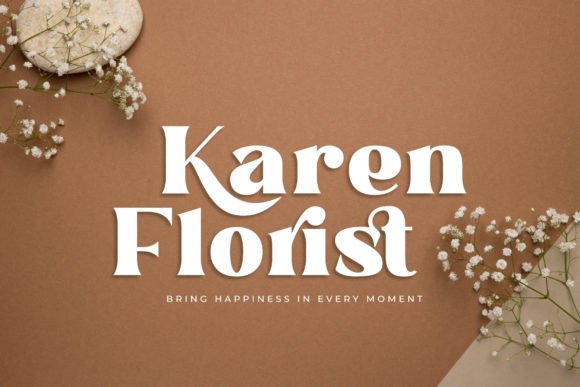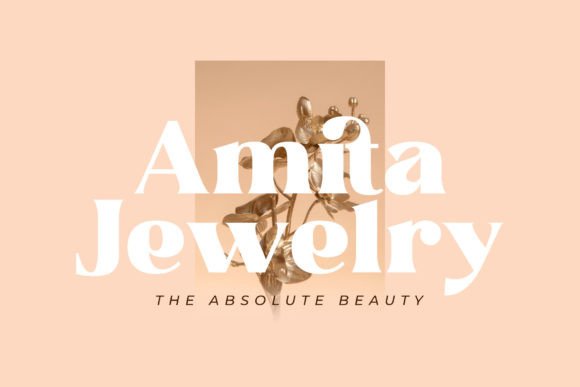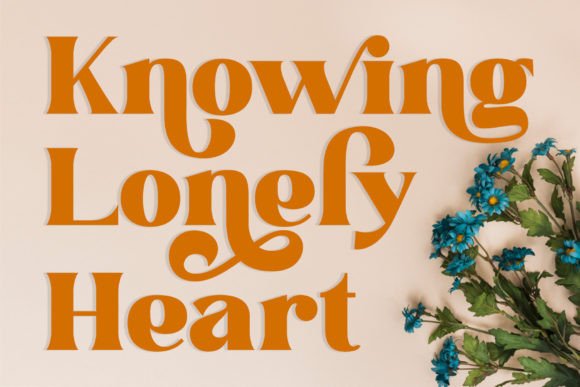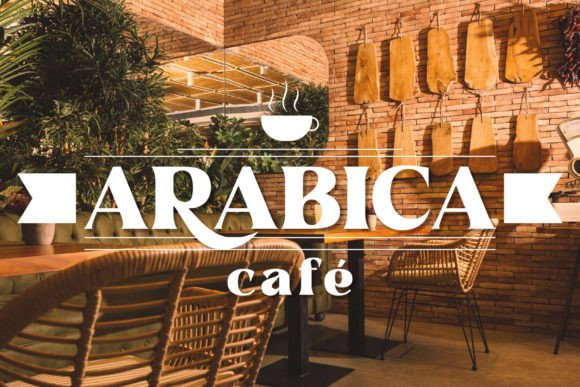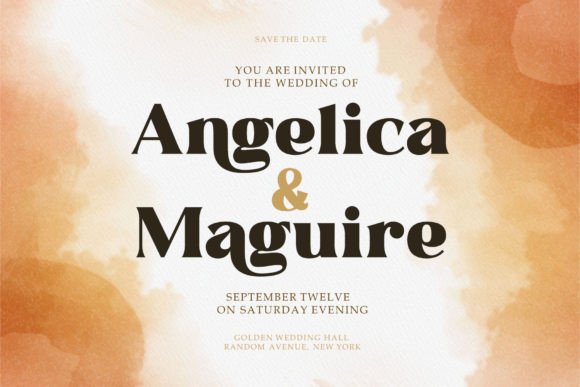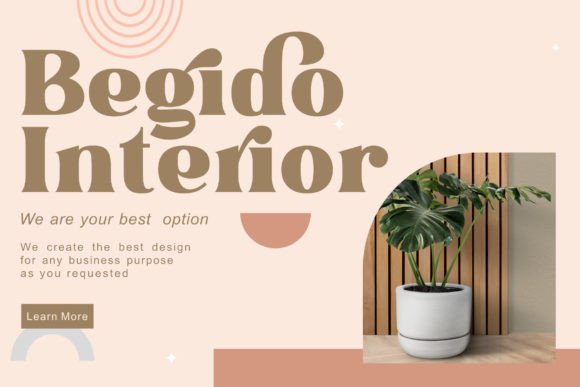
Introduction to Quails Font
Quails is a bold and assertive serif font.
Key Features of Quails Font
Why Choose Quails Font?
Quails Font offers exceptional quality and versatility, making it a valuable addition to your design toolkit. Whether you’re creating for personal projects or commercial use, Quails Font delivers professional results.